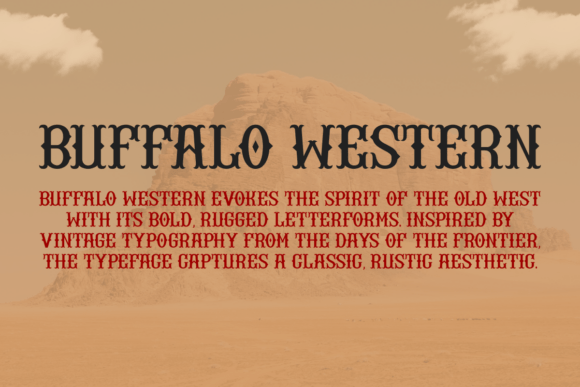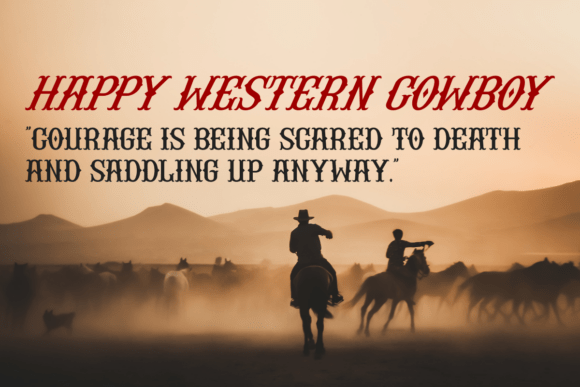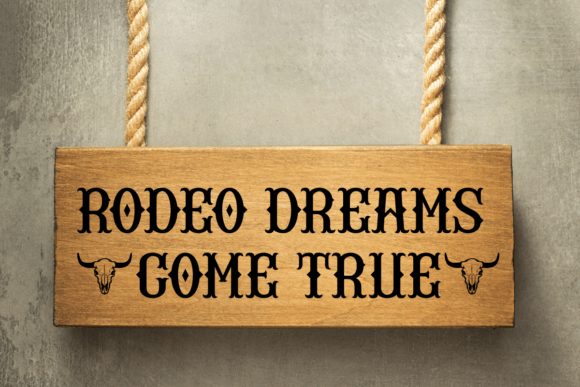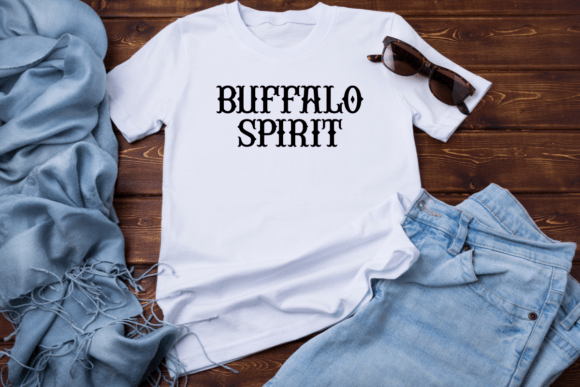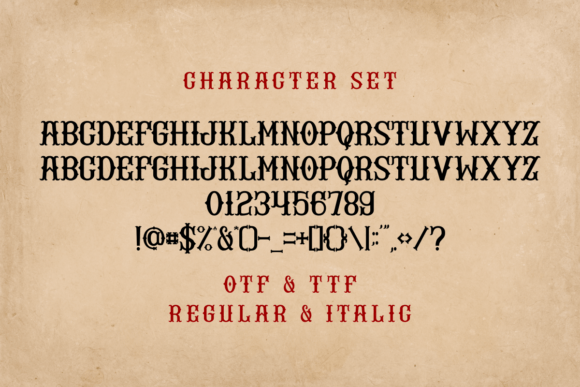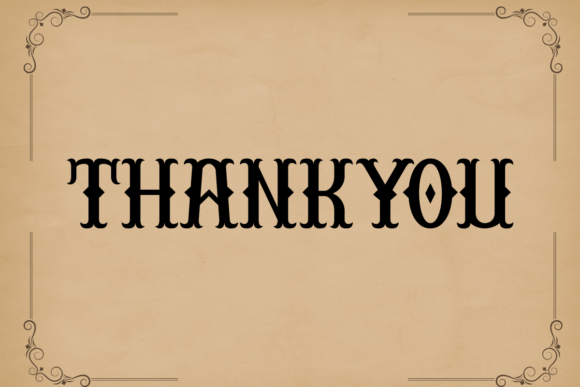
Introducing Buffalo Western Font: Unleash the Spirit of the Wild West
Are you looking for a font that embodies the rugged charm and nostalgic feel of the Wild West? Look no further than Buffalo Western, a bold and authentic vintage western font designed to bring the classic cowboy vibe to your creative projects. With its sharp details, ornamental touches, and rugged charm, Buffalo Western is the perfect choice for designers and crafters seeking to add a powerful and nostalgic western feel to their work.
The Inspiration Behind Buffalo Western
Buffalo Western is inspired by the spirit of the Wild West, an era of cowboys, outlaws, and lawmen. The font’s design is rooted in the classic typography of the American West, with bold lines, sharp serifs, and ornamental flourishes that evoke the rugged landscape and independent spirit of the frontier. Whether you’re creating a logo, poster, or signage, Buffalo Western is the perfect choice for adding a touch of authenticity to your design.
Key Features of Buffalo Western Font
- Bold and Authentic Design: Buffalo Western features a bold and authentic design that’s perfect for creating eye-catching headlines, logos, and signage.
- Sharp Details and Ornaments: The font’s sharp details and ornamental touches add a touch of elegance and sophistication to your designs.
- Rugged Charm: Buffalo Western’s rugged charm is perfect for creating designs that evoke the spirit of the Wild West.
- Vintage Feel: The font’s vintage feel is ideal for creating designs that require a nostalgic or retro touch.
Uses for Buffalo Western Font
Buffalo Western is a versatile font that can be used in a variety of creative projects, including:
- Logos and Branding: Use Buffalo Western to create bold and memorable logos for your business or brand.
- Posters and Flyers: Create eye-catching posters and flyers for events, promotions, or advertising campaigns.
- Apparel and Merchandise: Add a touch of western flair to your apparel and merchandise designs, such as t-shirts, hats, and stickers.
- Signage and Displays: Use Buffalo Western to create bold and attention-grabbing signage and displays for events, exhibitions, or retail spaces.
- Crafting Projects: Add a touch of western charm to your crafting projects, such as scrapbooking, card making, or DIY home decor.
Why Choose Buffalo Western Font?
There are many fonts available that claim to evoke the spirit of the Wild West, but Buffalo Western stands out from the crowd. Here are just a few reasons why:
- Unique Design: Buffalo Western features a unique design that’s both bold and authentic.
- High-Quality Typography: The font is designed with high-quality typography in mind, ensuring that your designs look professional and polished.
- Versatile: The font is versatile and can be used in a variety of creative projects.
If you’re looking for a font that embodies the spirit of the Wild West, look no further than Buffalo Western. With its bold and authentic design, sharp details, and rugged charm, this font is perfect for designers and crafters seeking to add a powerful and nostalgic western feel to their creative projects. Whether you’re designing logos, posters, apparel, signage, or crafting projects, Buffalo Western is the ideal choice. So why wait? Download Buffalo Western today and unleash the legendary spirit of the old West in your designs!